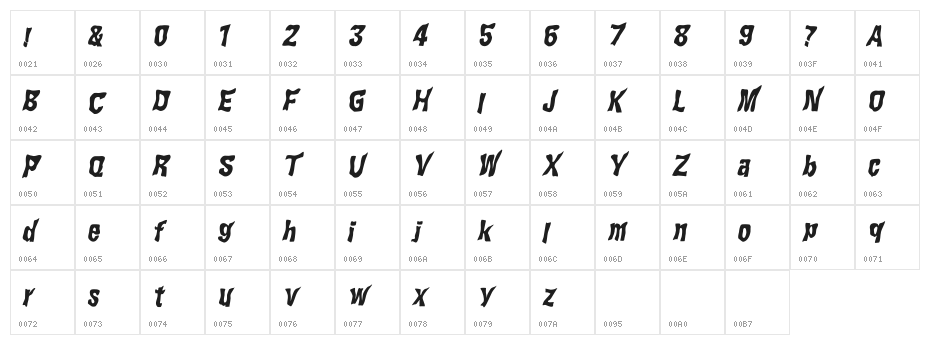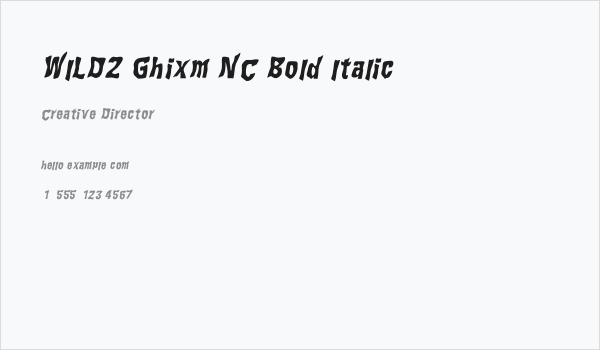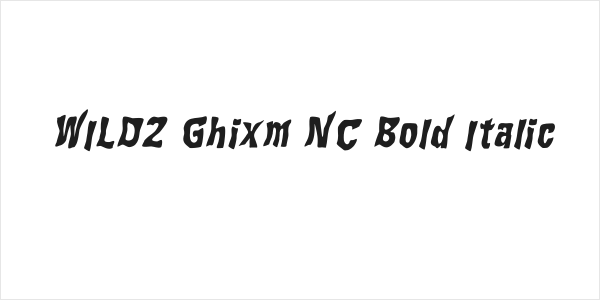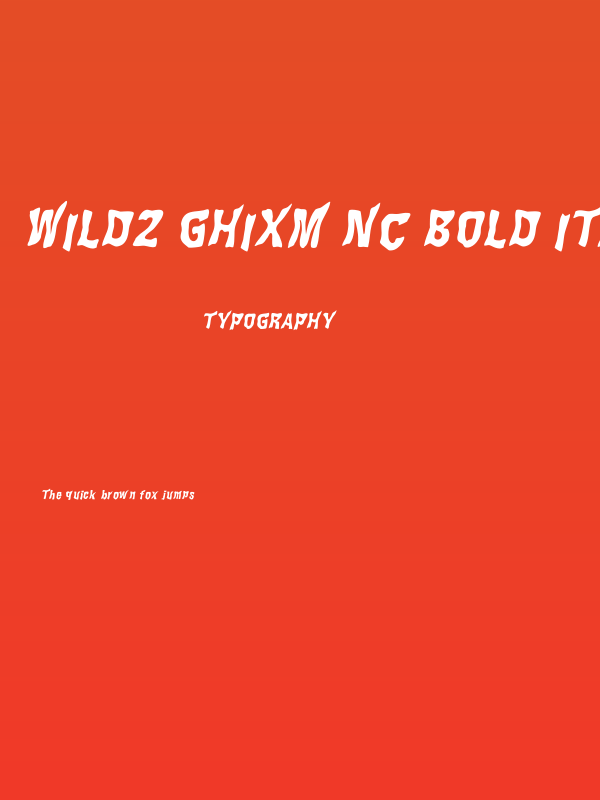
WILD2 Ghixm NC Bold Italic Font
WILD2 Ghixm NC Bold Italic Description
This font features a bold and italicized style with a dynamic and energetic appearance. The characters have a slightly irregular, hand-drawn quality, giving them a lively and spontaneous feel. The strokes are thick and robust, with a noticeable slant that enhances the italic effect. The uppercase and lowercase letters maintain a consistent style, while the numbers and special characters blend seamlessly with the overall design. This font's unique character shapes and bold presence make it stand out, suitable for projects that require a strong visual impact.
| Proposed Projects | Ideal for posters, logos, branding, and any design needing a bold, energetic typeface. |